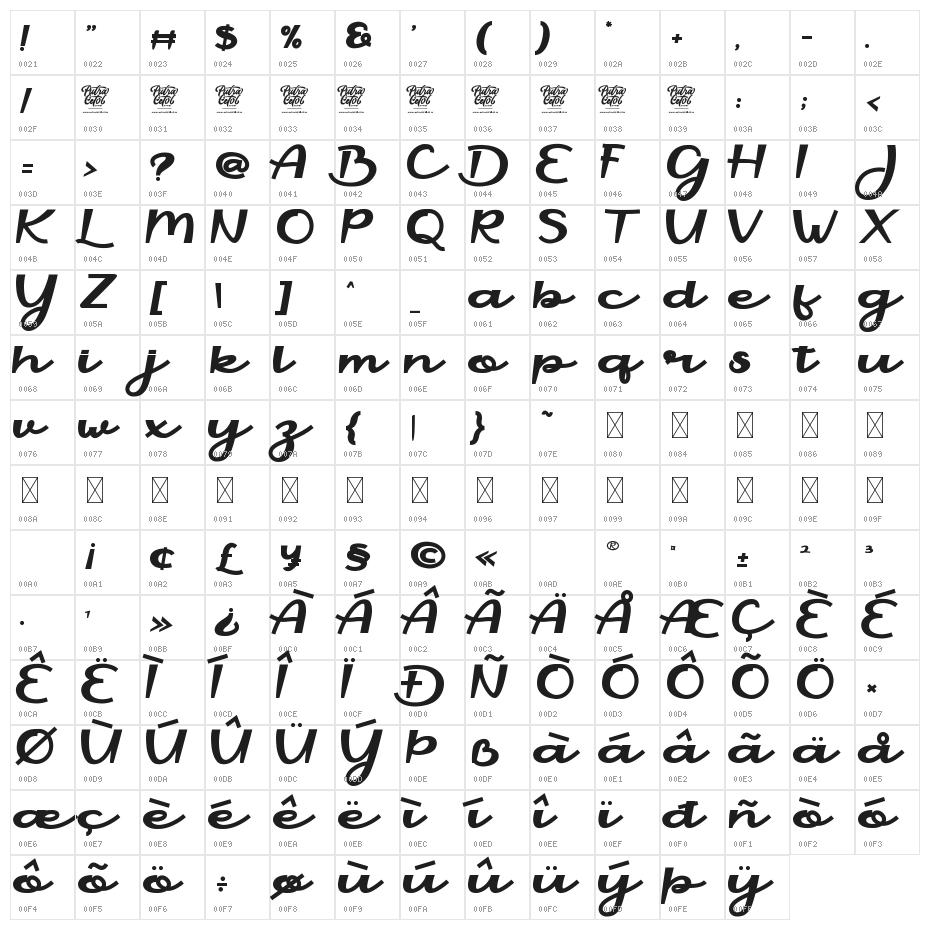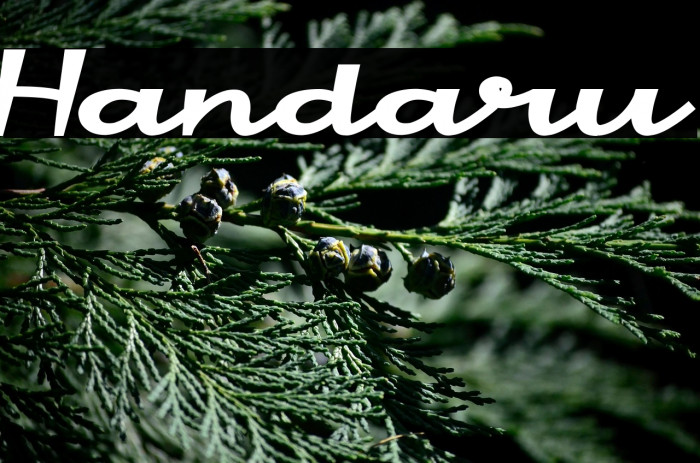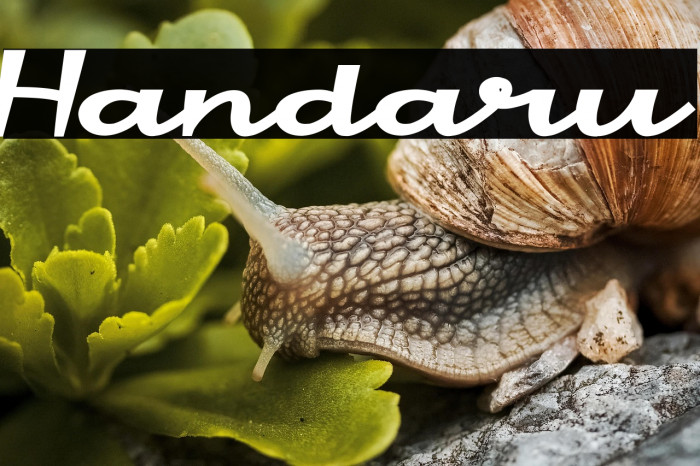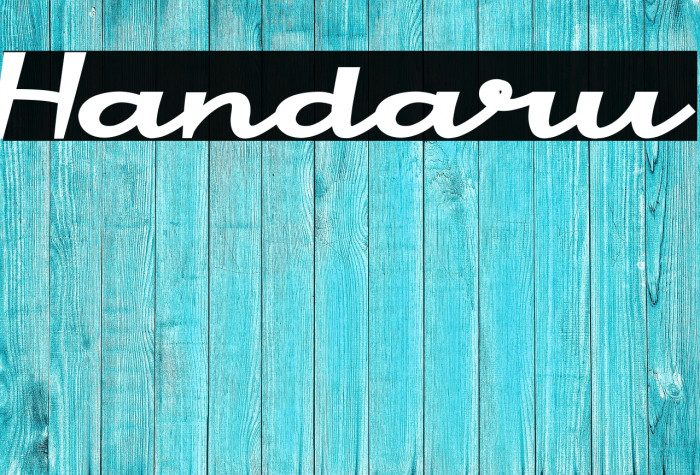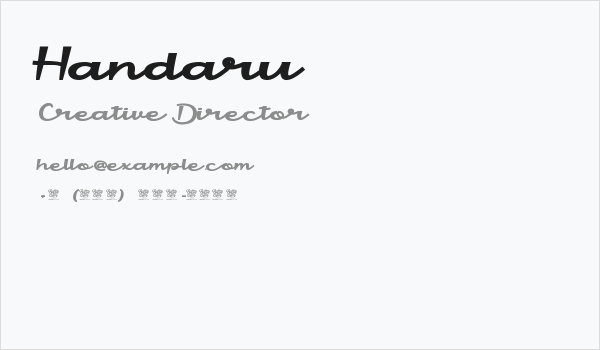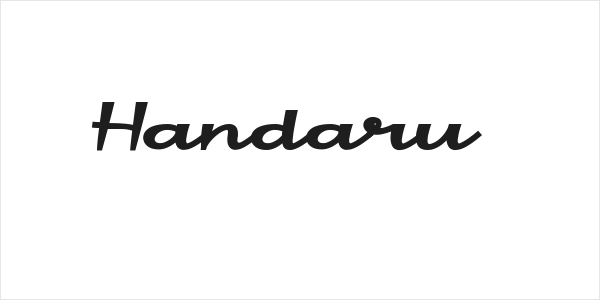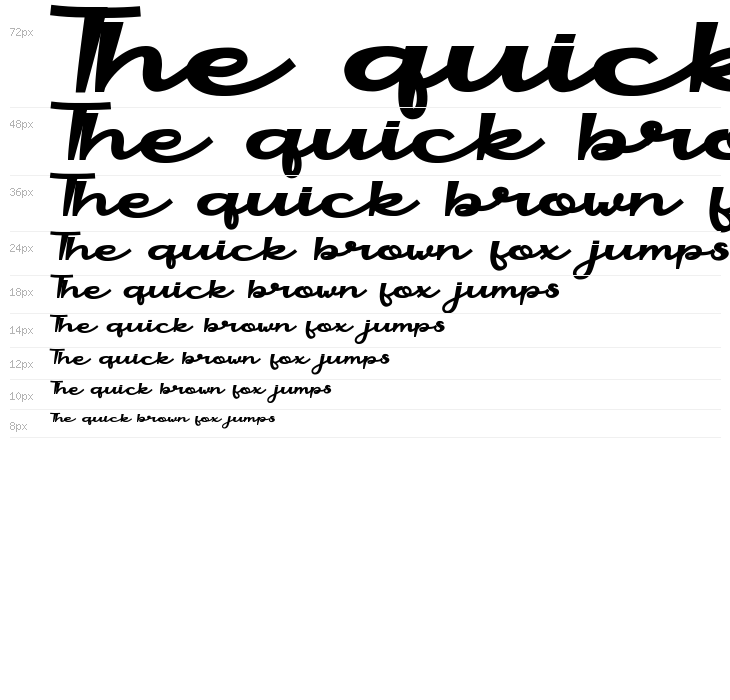
Handaru Font
Handaru Description
This font features a bold and flowing script style, characterized by its smooth, cursive letterforms that convey a sense of elegance and fluidity. The uppercase letters are distinct with a slight slant, while the lowercase letters maintain a consistent flow, enhancing readability. The font includes a full set of numerals and a variety of special characters, making it versatile for various design needs. Its bold strokes and rounded edges give it a friendly yet sophisticated appearance, suitable for both formal and casual contexts.
Overall StyleElegant
Use CaseLogos, Invitations, Branding
Proposed ProjectsIdeal for wedding invitations, branding, logo design, and greeting cards.